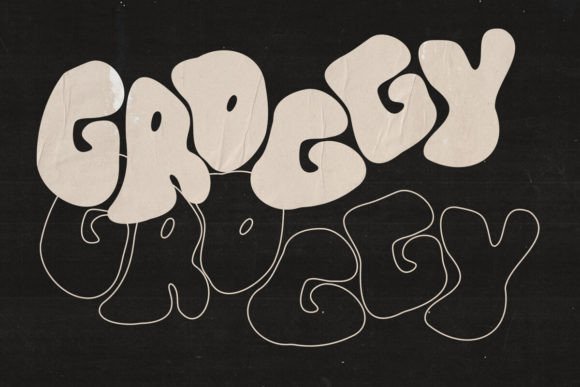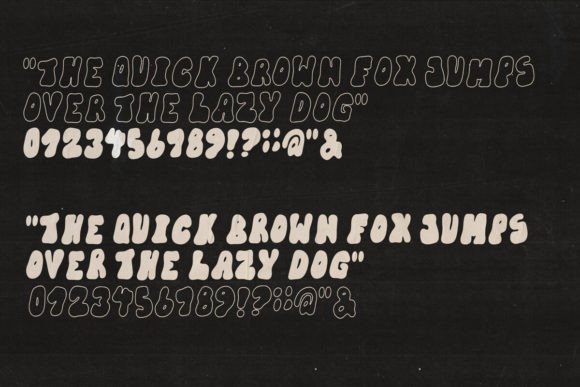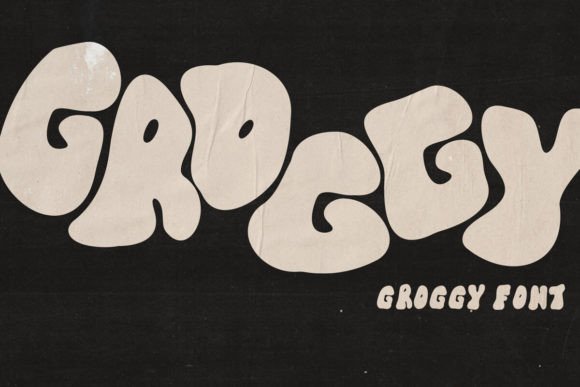
Groggy Font: Y2K Bubbly Retro Font for Playful Designs
About the Groggy Font
The wait is over! The incredible Groggy Font is now available for your design toolkit. Introducing Groggy Font, the perfect addition to your design toolkit! This fun font bundle includes both Regular and Outlined versions, making it a must-have for anyone looking to add a unique touch to their projects. The Groggy Font features a thick, bubbly graffiti style that is reminiscent of the Y2K era, perfect for adding a playful and nostalgic vibe to your designs.
Groggy Font’s playful, bubbly forms work best in headlines, short text blocks, logos, and packaging design where its bold personality can shine. It’s ideal for projects targeting a young, vibrant audience and brands with a fun, slightly rebellious edge. Avoid using it for body text or lengthy paragraphs; its thick strokes reduce readability at smaller sizes.
To balance Groggy Font’s informal energy, pair it with a clean sans-serif like Open Sans for body copy or a more geometric sans-serif like Futura for a modern contrast. For a softer look, consider pairing it with a delicate script font.
The overall personality of Groggy Font is undeniably bold and playful, offering a nostalgic yet contemporary feel, reminiscent of early 2000s aesthetics.